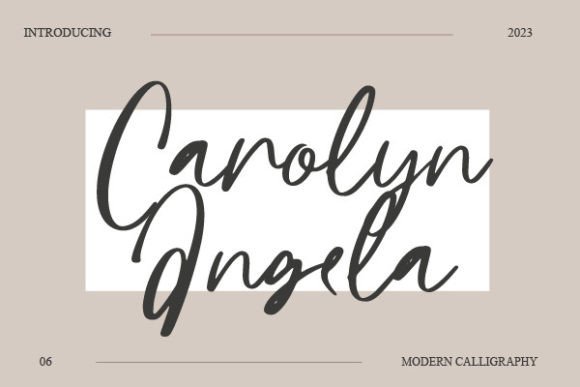
The Designer’s Dream Font: Carolyn Angela
I’ll never forget the moment I stumbled upon Carolyn Angela, an incredibly stylish handwritten script font that has become a staple in my design toolkit. I was working on a branding project for a boutique client, and I was struggling to find the perfect font to capture the essence of their elegant yet playful brand. That’s when I discovered Carolyn Angela, and it instantly became my go-to font. Masterfully designed to become a true favorite, this font has the potential to bring each of your creative ideas to the highest level!
So, what makes Carolyn Angela so special? Let’s dive into the good stuff and a few quirks I’ve encountered.
• ✨ Elegant and flowing script style that’s perfect for branding, invitations, and more
• 🌈 Beautifully crafted with attention to detail, making it perfect for high-end designs
• 🤩 Extensive character set, including OpenType features and stylistic alternates
• ⚠️ Some users might find the font a tad too ornate for very casual or minimalist designs
• 🤔 Limited availability of certain characters, such as ligatures, which may require additional setup
The Story Behind Carolyn Angela
Carolyn Angela was designed with the intention of creating a beautiful, elegant script font that captures the essence of handwritten typography. The designer aimed to craft a font that would be both stylish and legible, making it perfect for a wide range of creative projects.
What makes Carolyn Angela unique? Carolyn Angela stands out with its elegant and flowing script style, extensive character set, and attention to detail.
Is Carolyn Angela difficult to read? No, Carolyn Angela is highly legible, even at smaller font sizes, making it perfect for a wide range of applications.